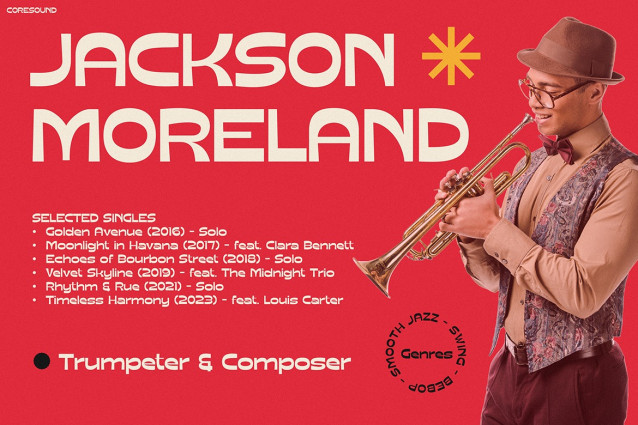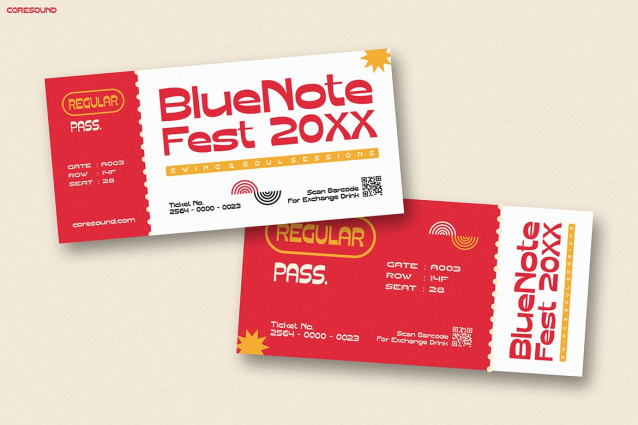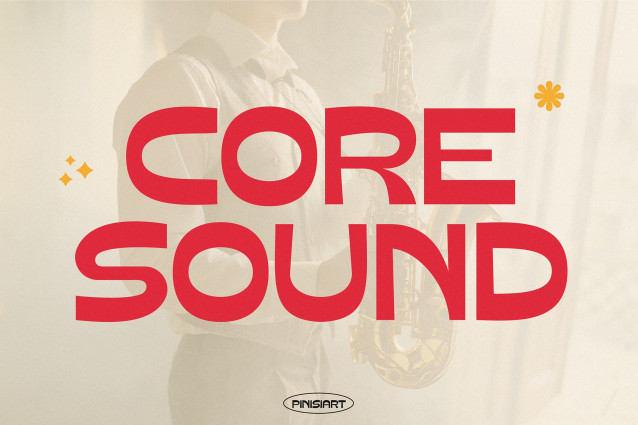
Coresound Font
Coresound Font is a unique typeface that blends clean rounded forms with strong rhythm and effortless readability. Its bold strokes and smooth curves deliver a retro jazz feel, while also keeping a fresh, modern edge. As a result, this font becomes eye-catching, versatile, and highly effective for countless creative projects. Moreover, it works beautifully on posters, album covers, branding, or signage, ensuring every word stands out with confidence and rhythm.
What makes Retro Font Coresound truly distinctive is the way it balances vintage energy with modern clarity. The rounded forms flow naturally, therefore making reading comfortable while still capturing attention. In addition, its bold geometry brings a professional yet artistic character, which means your message remains stylish and impactful across different media. Because of this, the font feels both timeless and relevant, making it a design investment that will not lose its appeal.